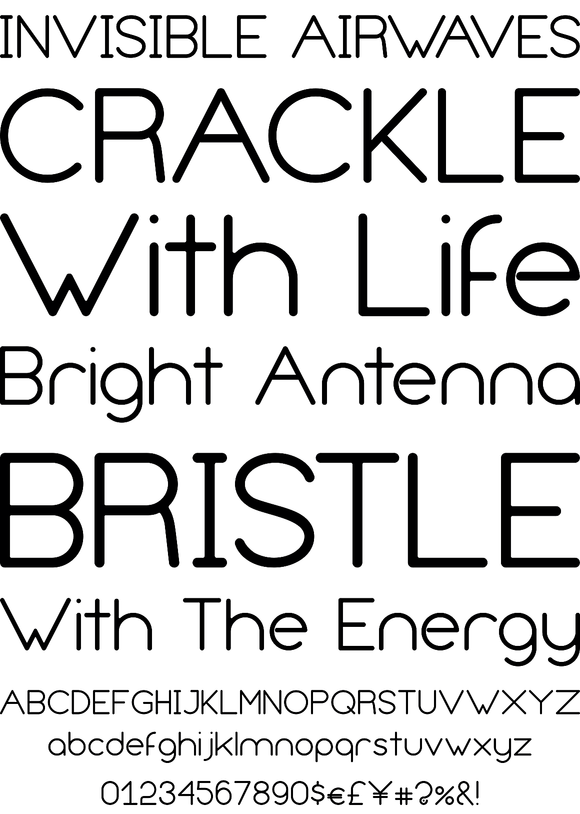
Foundry: NiceType
Air is a deliciously smooth & sexy typeface that is incredibly understated, yet which can have a great impact when scaled up. It is a contemporary typeface so it will thrive in minimalist layouts, where type is the hero. It was designed in 2011 by Nice, a graphic design studio based in London, England.